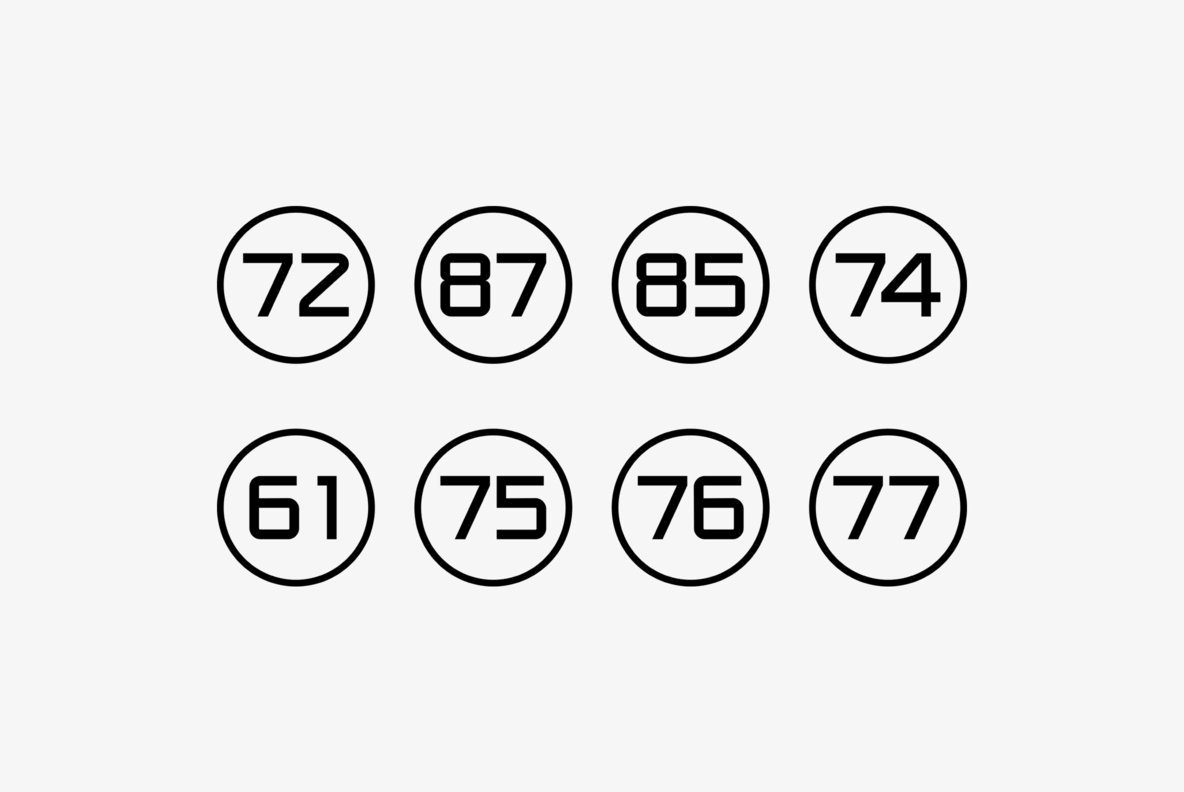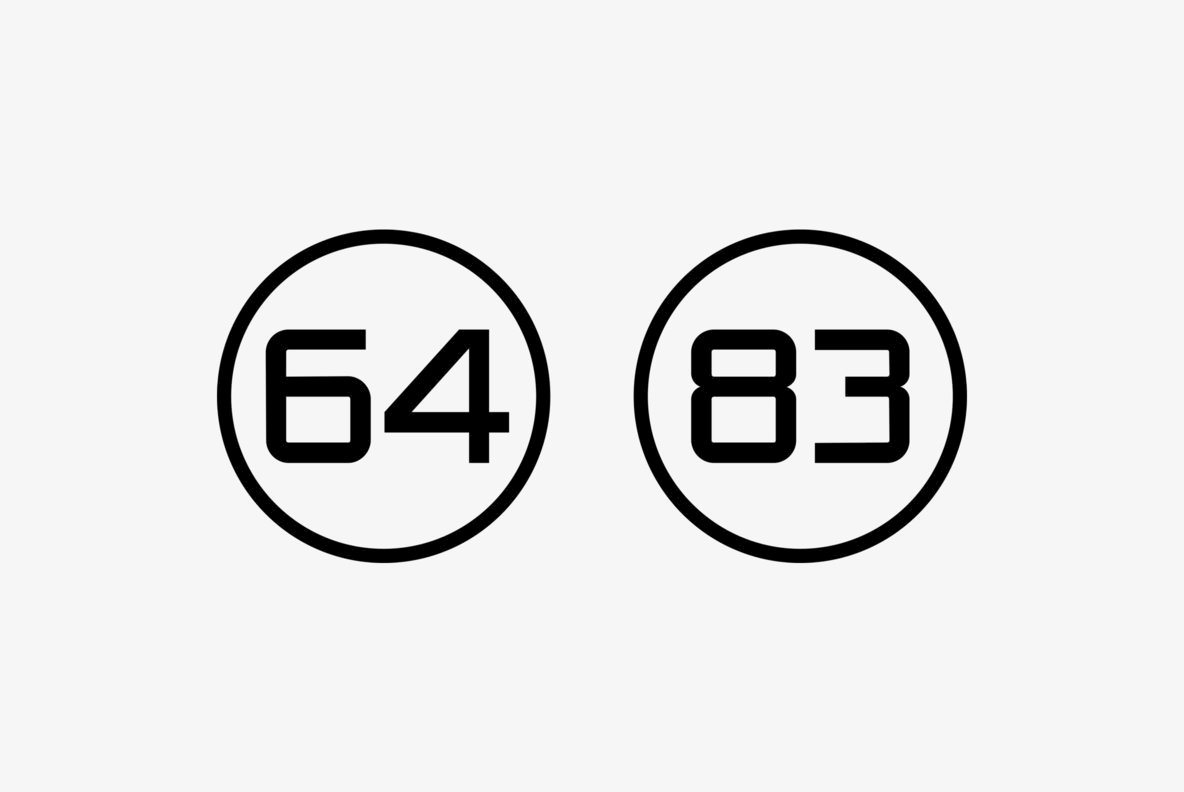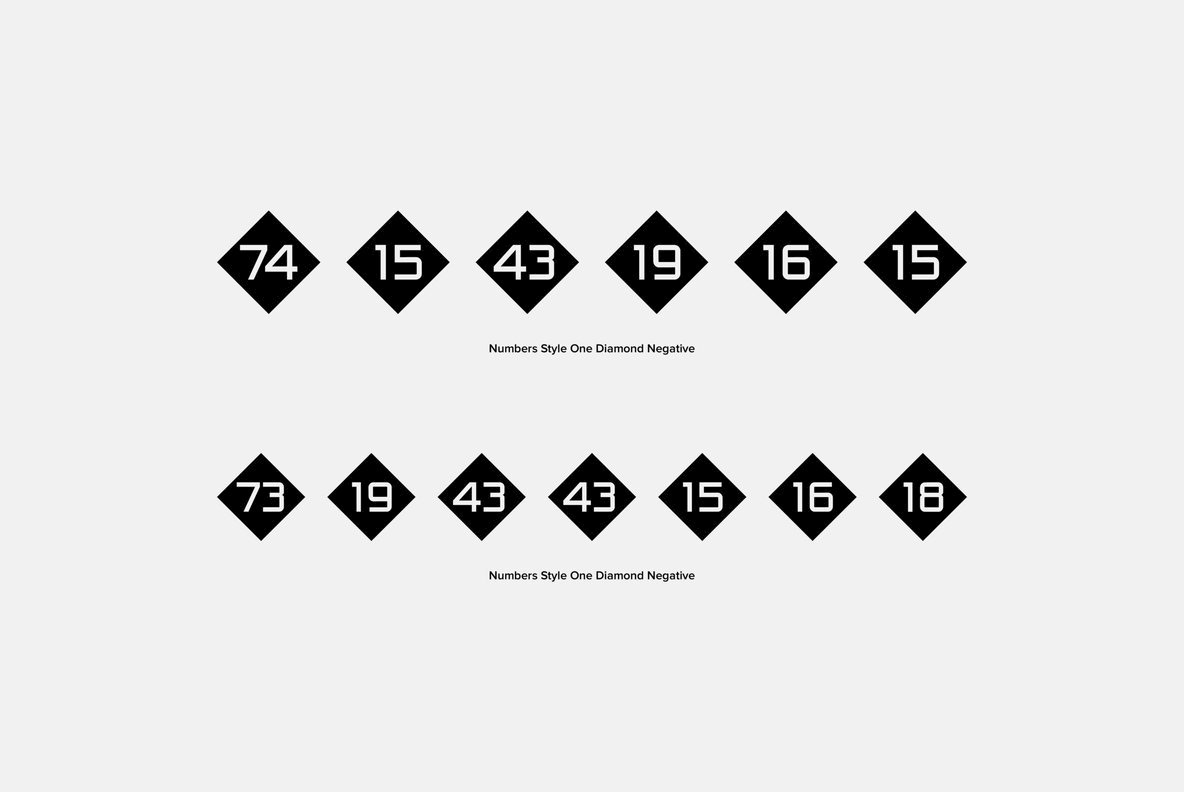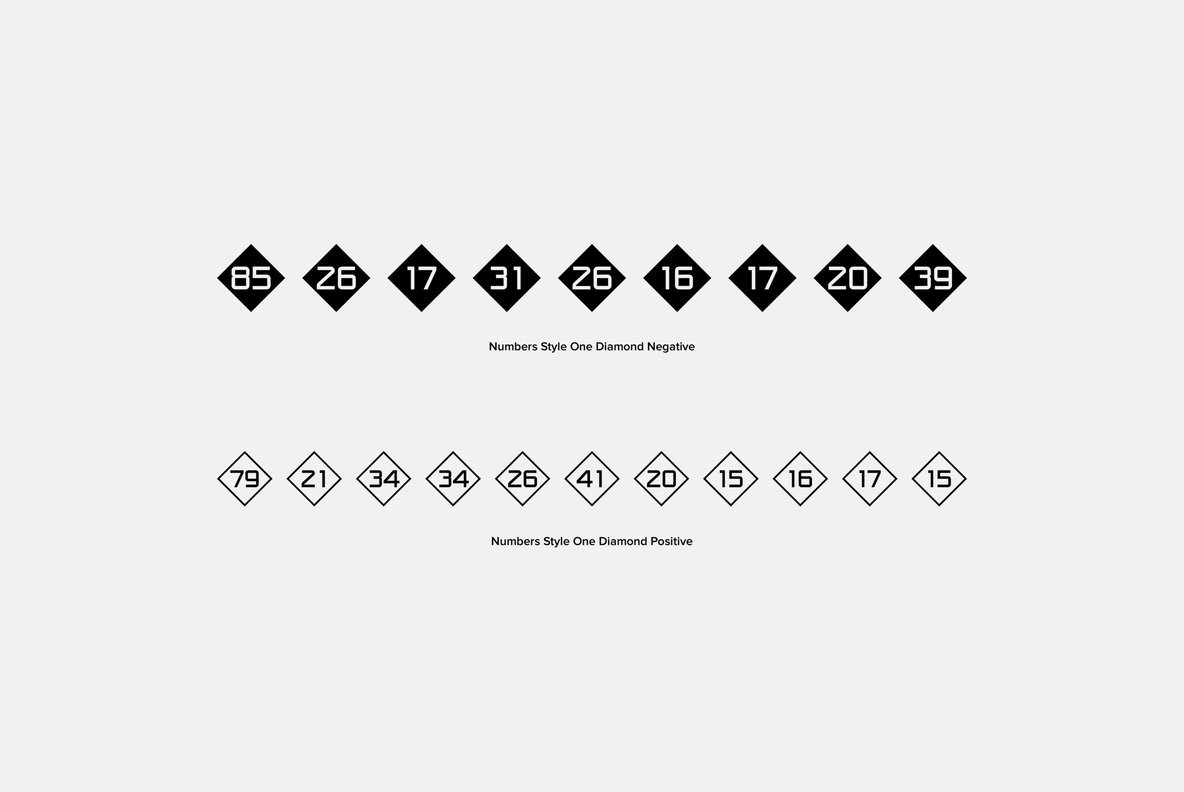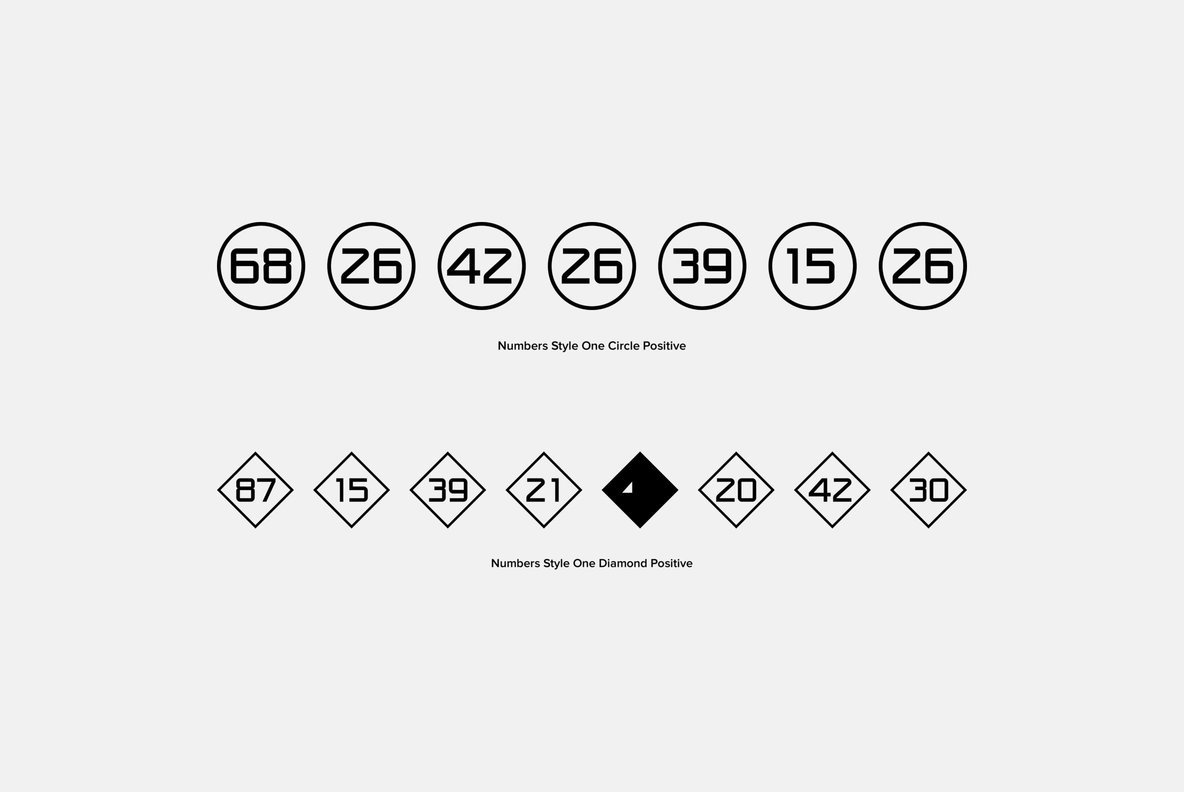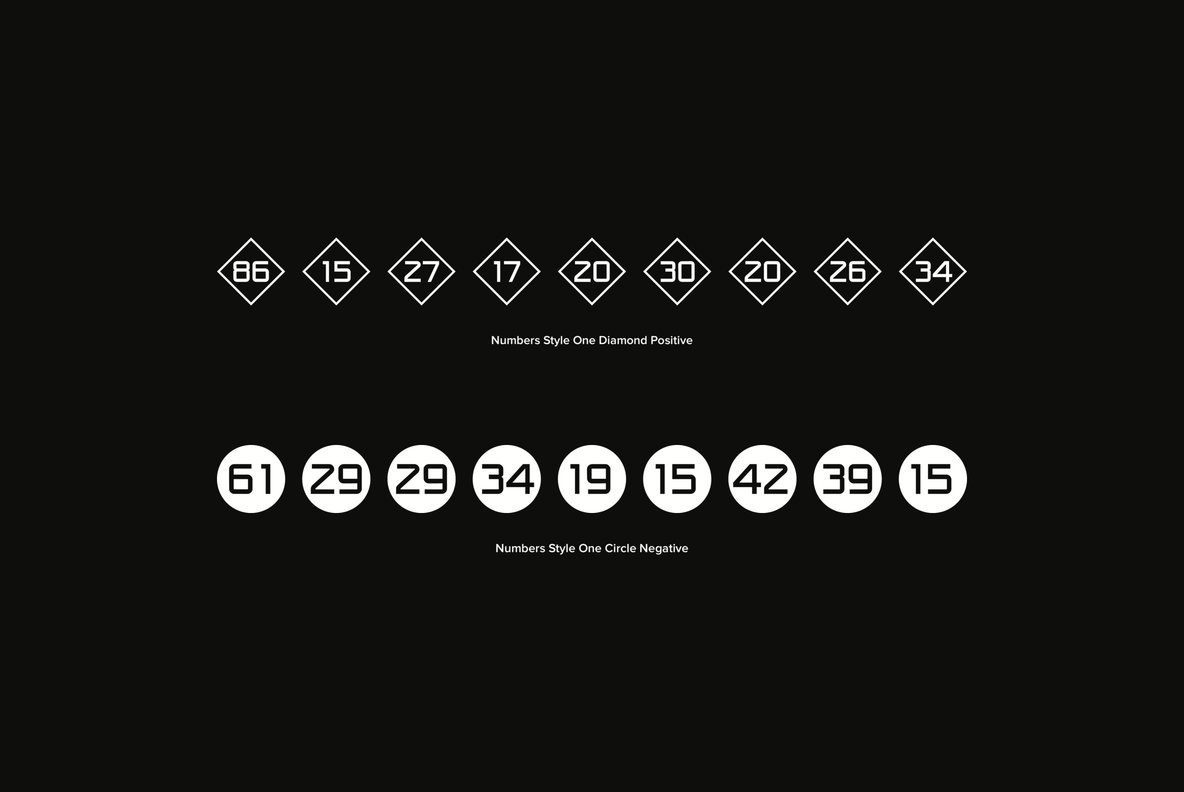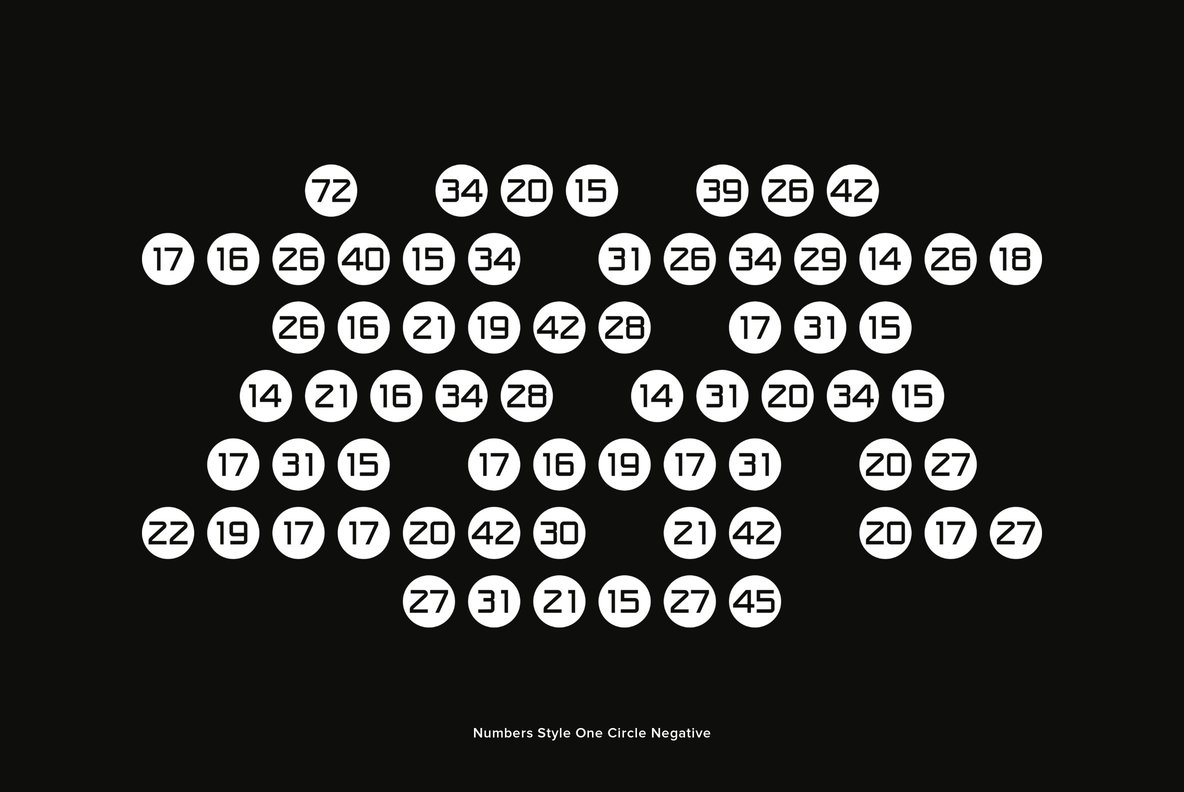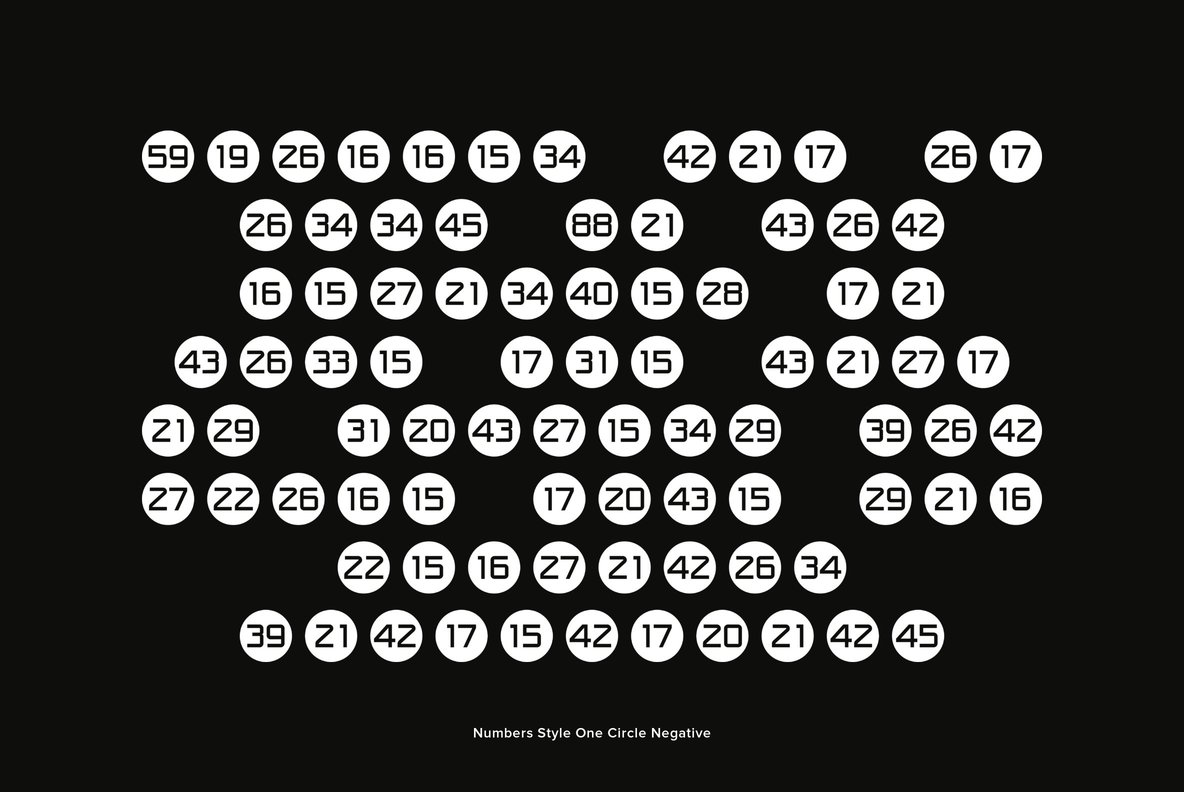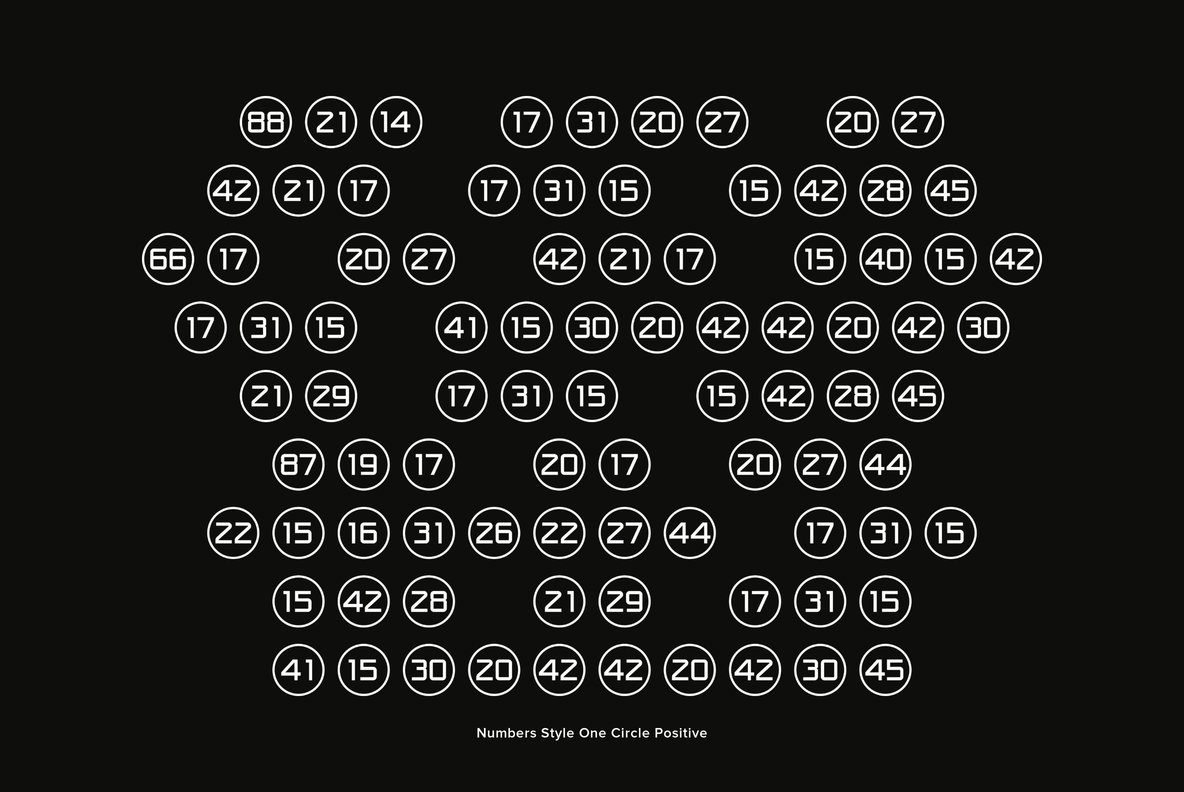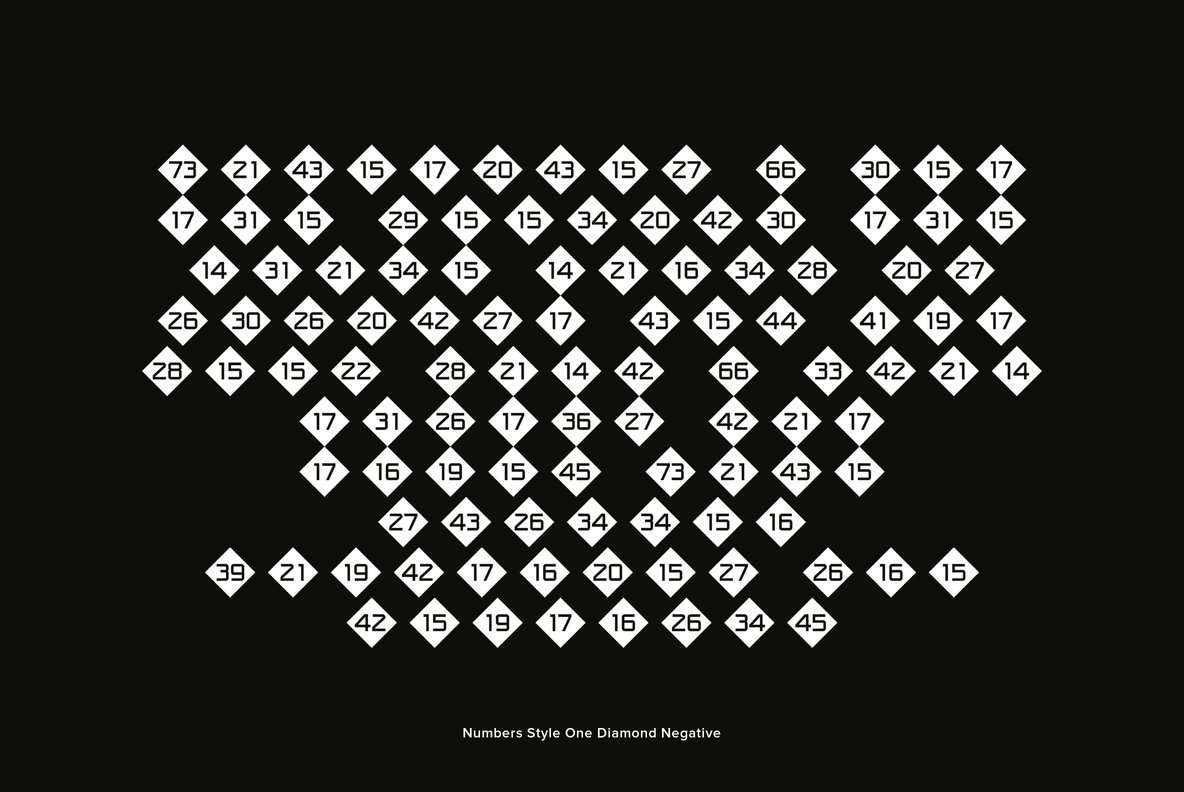
Numbers 0-99 Style One Font
Numbers 0-99 Style One includes 6 fonts of 100 characters, 0 to 99, each of circle, square, and diamond in positive and negative.